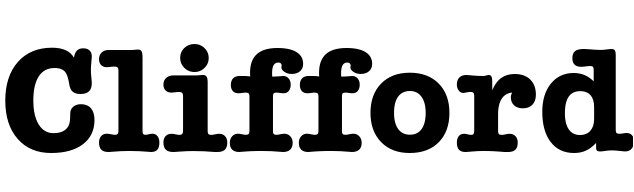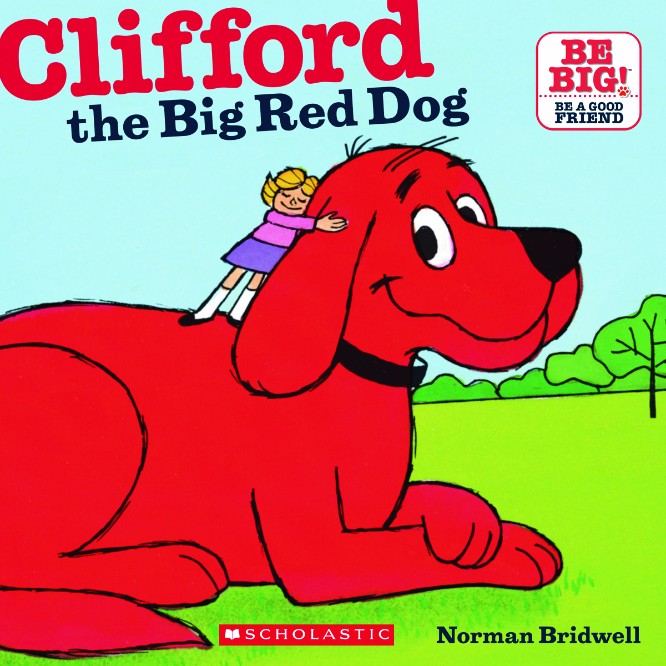
Clifford the Big Red Dog Font
BookClifford the Big Red Dog is a children's book series written and illustrated by Norman Bridwell. The series follows the adventures of Clifford, a giant red dog, and his human friend Emily Elizabeth in the fictional town of Birdwell Island.
The iconic American Typewriter Bold, designed in 1974 by Joel Kaden and Tony Stan for ITC, is used for the word "Clifford" on the book cover. The text "the Big Red Dog" is likely set in Aldo Novarese's Egizio Bold or Aldogizio Semi Bold from TeGeType.